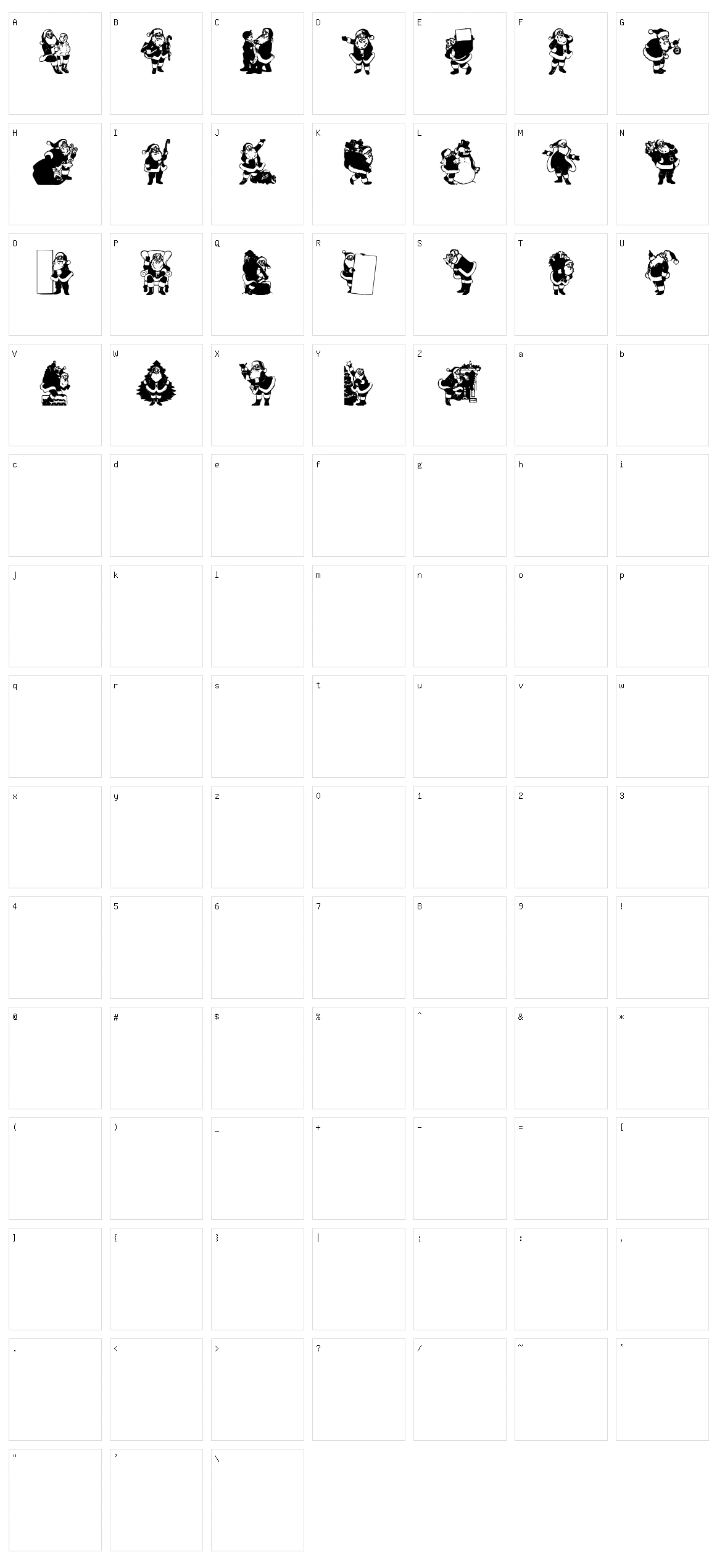
The free font RYP Snata 1 is carefully designed by Robyn Phillips, showcasing a thoughtful balance of creativity and usability and falls under the Christmas font style. When you download the ZIP file, it contains only 63.67 KB of font files, making it lightweight and quick to download. Please review the license details below to understand permitted usage and distribution rights. If license information is not available, we recommend using this font for personal projects only or contacting the author directly for commercial usage permissions.